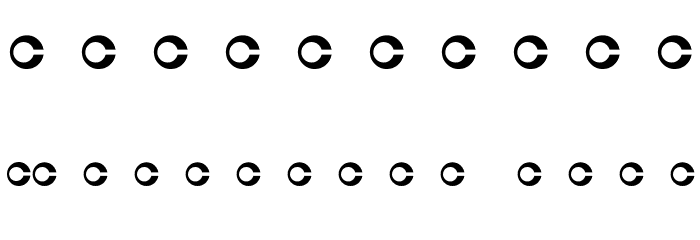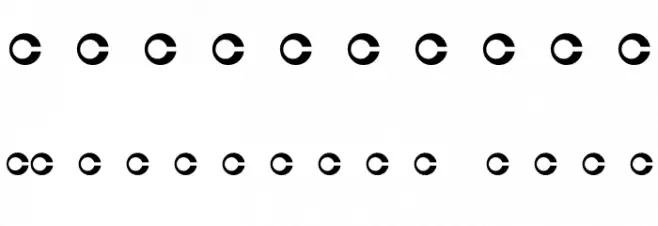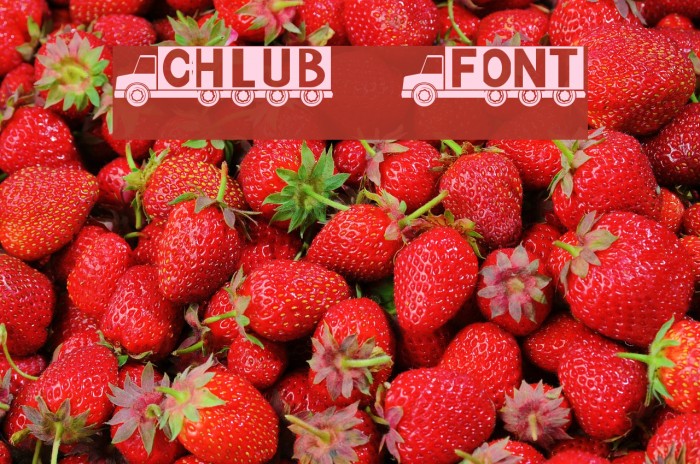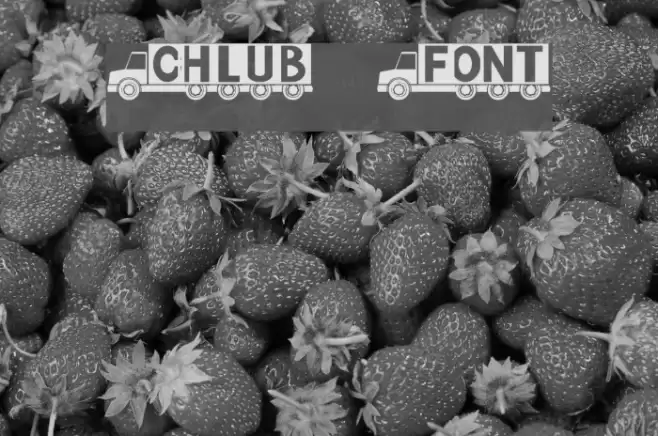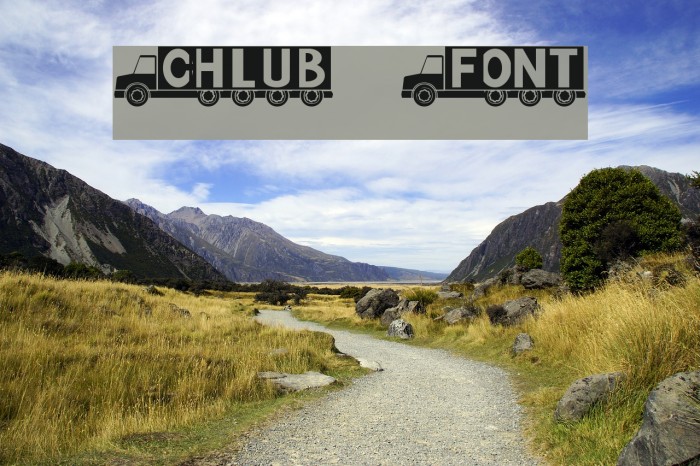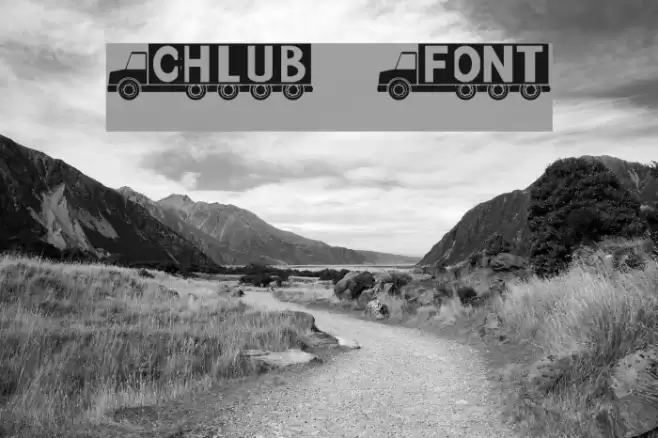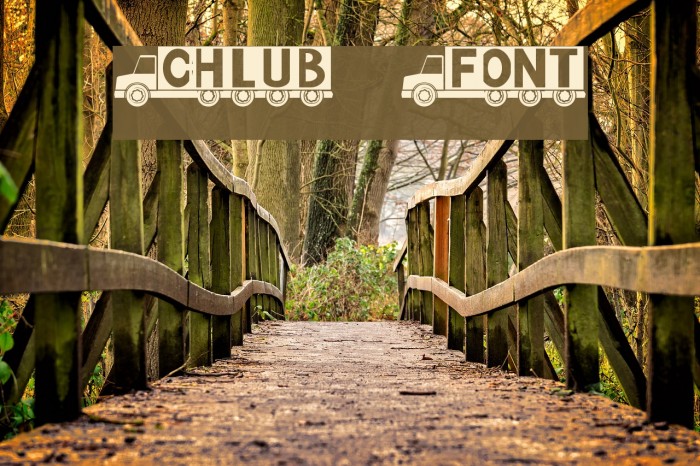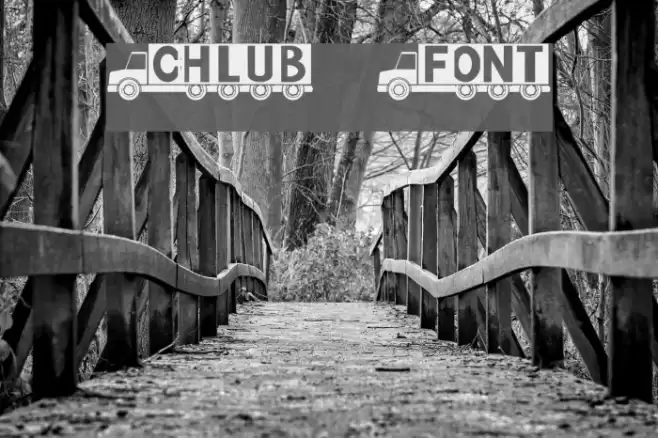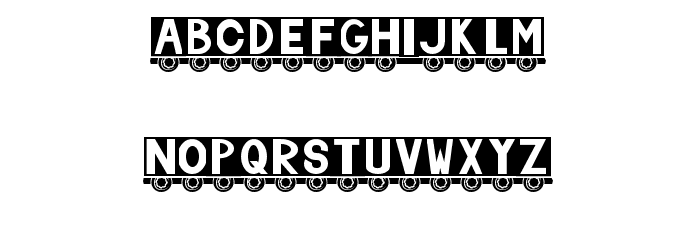
Chlub Font
Chlub Description
This playful and imaginative font features each letter housed within a train car, complete with wheels and a bold, blocky style. The uppercase letters are prominently displayed, creating a sense of movement and fun. The design is highly decorative, making it ideal for children's projects or any theme related to transportation or adventure. The font's unique style captures attention with its creative and whimsical approach, offering a sense of nostalgia and joy. The letters are evenly spaced, ensuring readability while maintaining the playful aesthetic. This font is perfect for projects that require a touch of creativity and fun, such as children's books, educational materials, or themed party invitations.